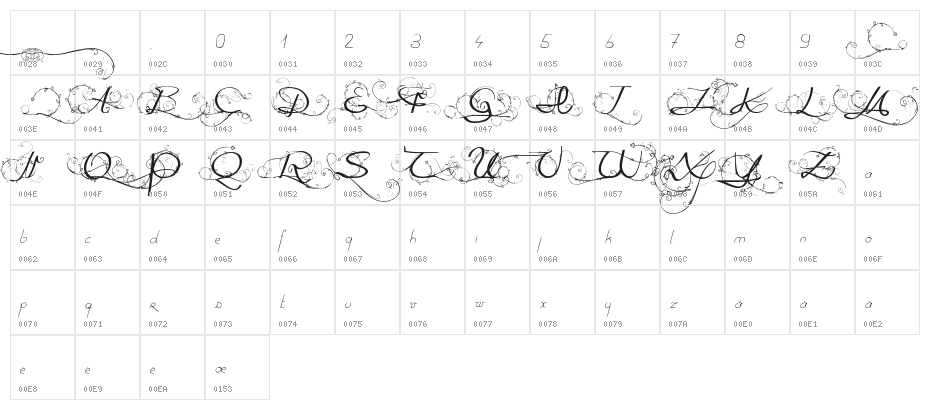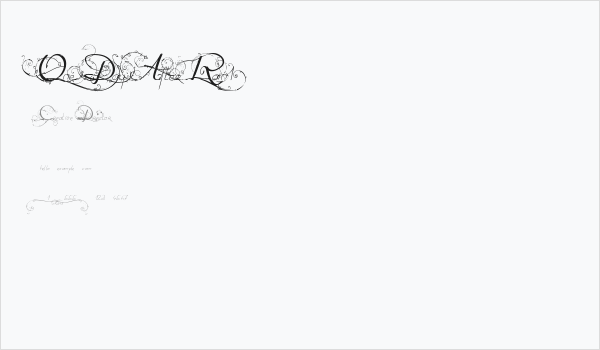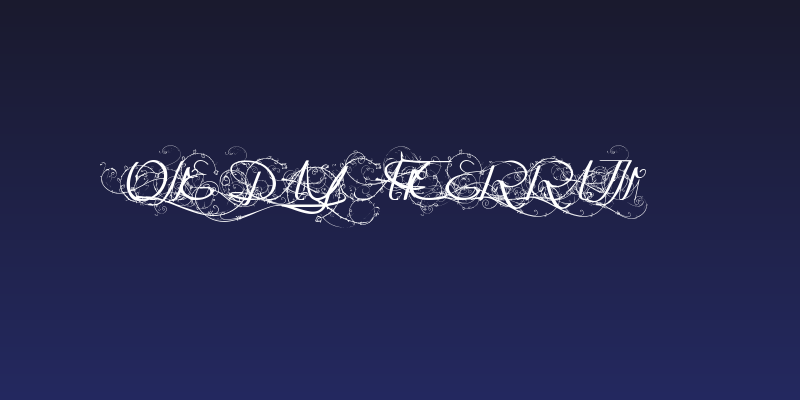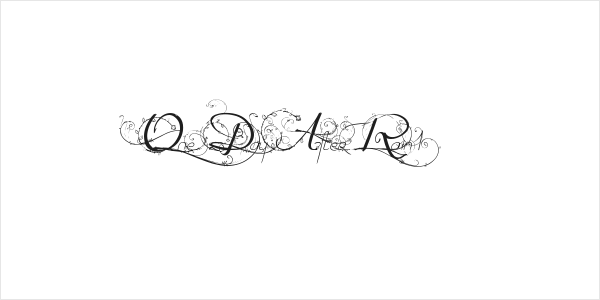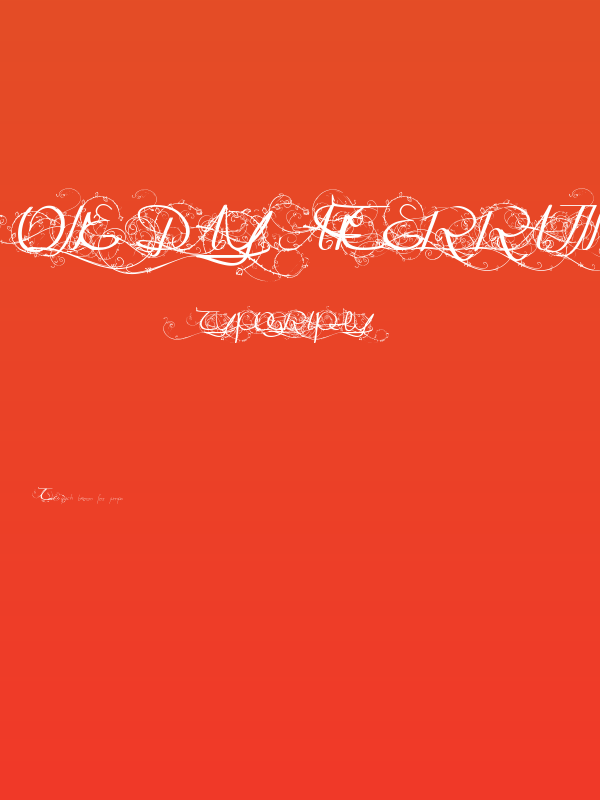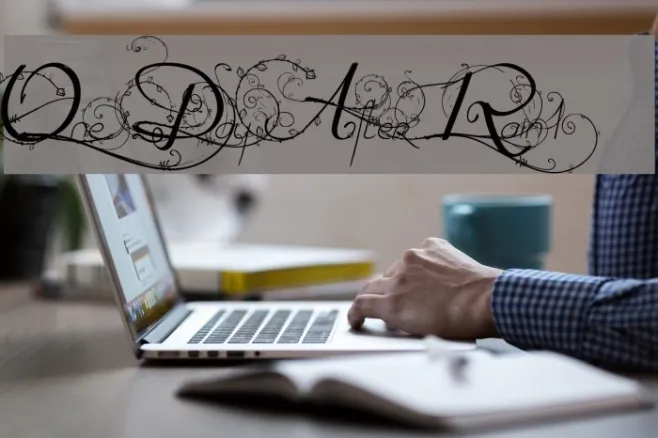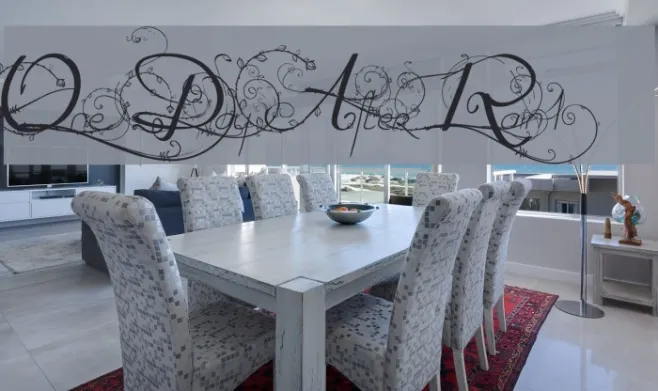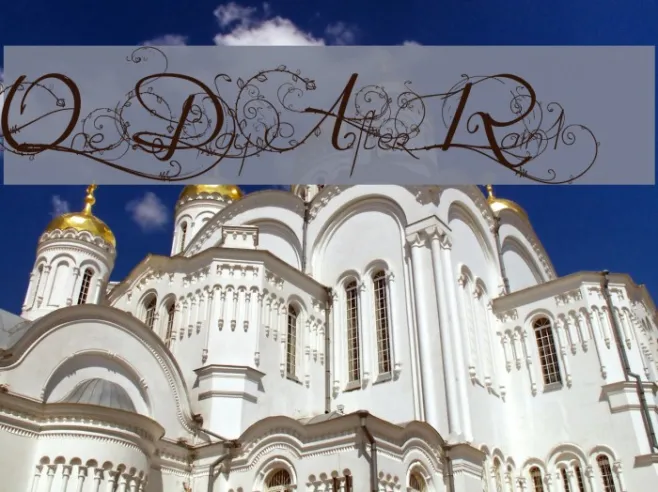
One Day After Rain1 Font
One Day After Rain1 Description
This font is an elaborate and decorative typeface that combines intricate swirls and flourishes with a delicate, thin stroke. The uppercase letters are particularly ornate, with each character adorned with elaborate embellishments that give it a whimsical and artistic feel. The lowercase letters maintain a more streamlined appearance, yet still carry a sense of elegance and fluidity. The numbers are consistent with the lowercase style, offering a cohesive look across the entire character set. This font's unique style makes it stand out, ideal for projects that require a touch of sophistication and creativity.
| Use Case | Logos, Invitations, Artistic Projects |
| Proposed Projects | Ideal for wedding invitations, artistic posters, branding for luxury products, and decorative book covers. |